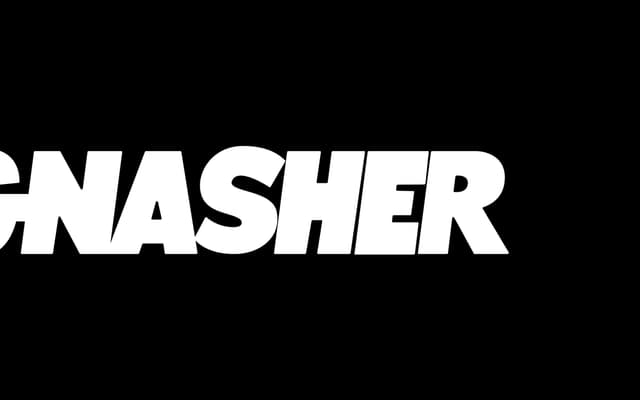
A chunky block-letter display face with alternating letterforms that mimic the irregular quality of hand-drawn notebook lettering.
Built around oversized, heavily blocky forms, Gnasher mimics the kind of marker lettering that fills school notebooks. Both upper and lowercase include letterform variations to break up mechanical repetition and preserve a hand-rendered feel. Suited to streetwear graphics, zines and any project needing blunt, casual weight.
Super blocky, hand-rendered block letterforms designed for display use; echoes informal marker and notebook lettering traditions rather than any formal type classification.